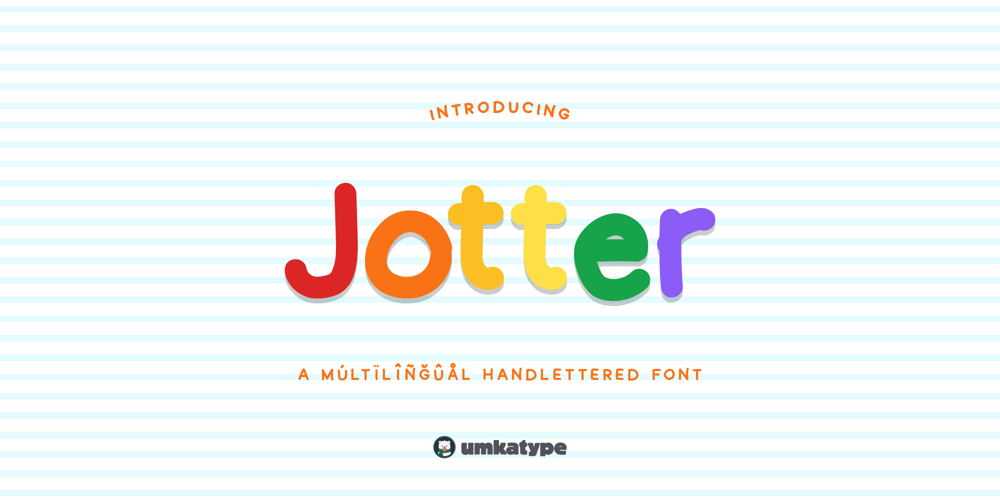
Jotter Font Family was designed by Alper Çakıcı and published by Umka Type. Jotter contains 1 styles and family package options. Introducing Jotter, the font that speaks 93 languages and gives a million giggles! 🌍✨Are you tired of boring fonts that only speak a few languages? Jotter is here to save the day with its playful, geometric style and support for a whopping 97 languages, from Belarusian to Zulu! Whether you’re writing a love letter in French, a shopping list in Swahili, or a funny meme in Russian, Hoopoe has got you covered.With its childish charm and versatility, Jotter is perfect for adding a touch of fun to your projects. From whimsical posters to colorful websites, this font is like a box of crayons for your words. Plus, its friendly nature means your content will shine bright like a diamond in marketing world.Get ready to bring fun to your projects with Jotter Handwritten Font – the font that’s fluent in fun! 🎨🤪